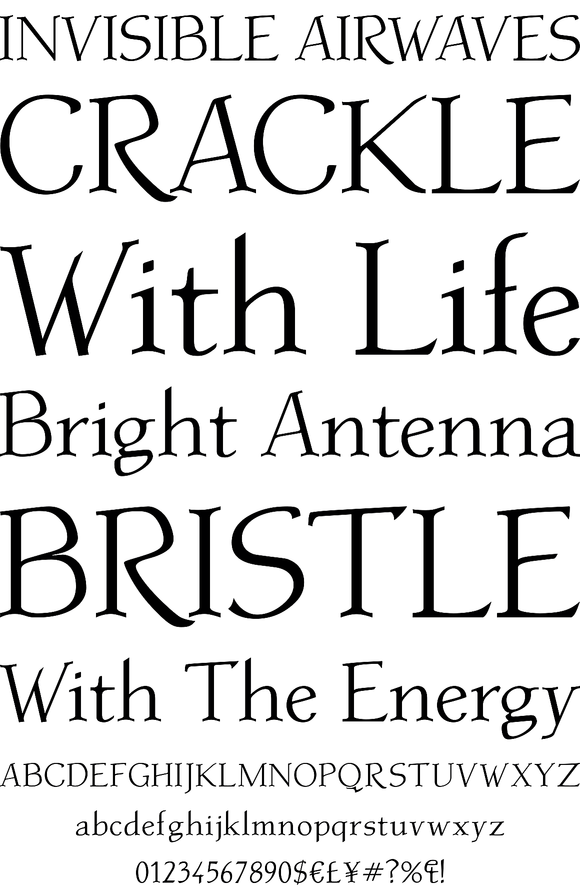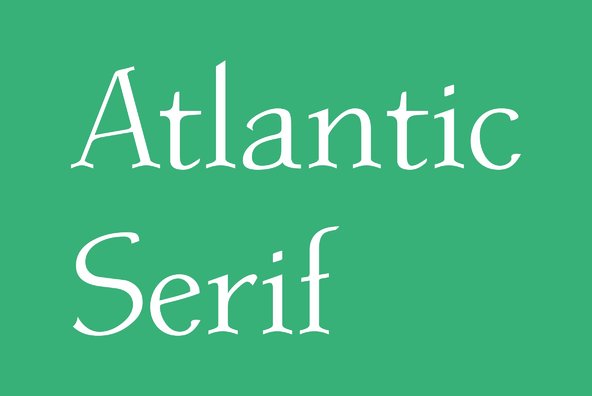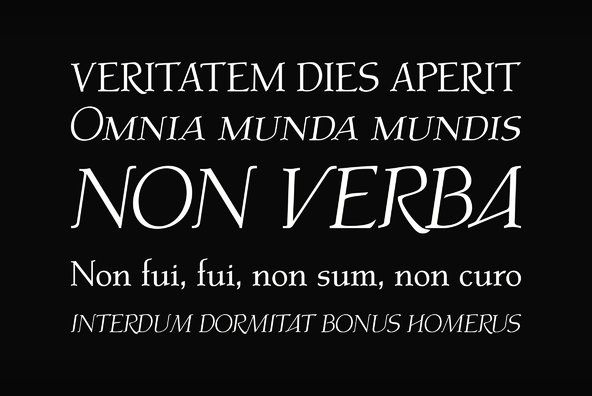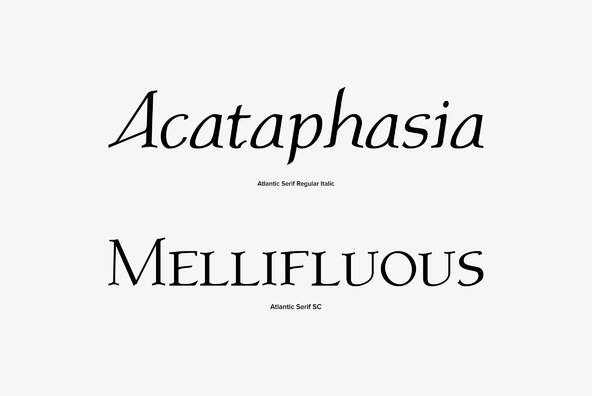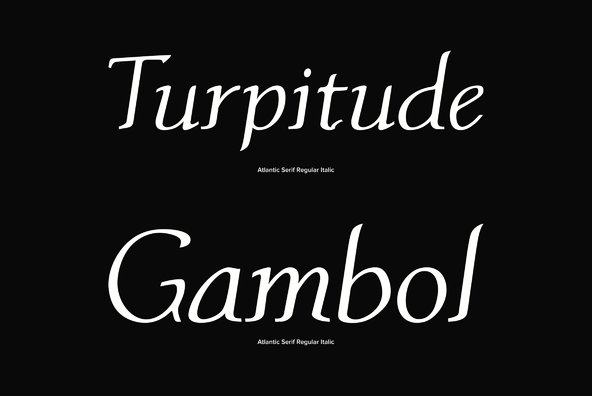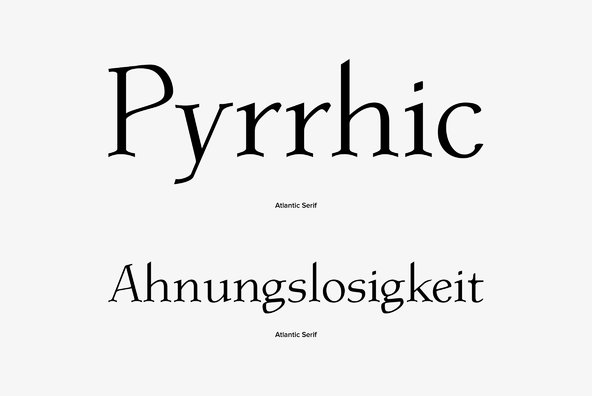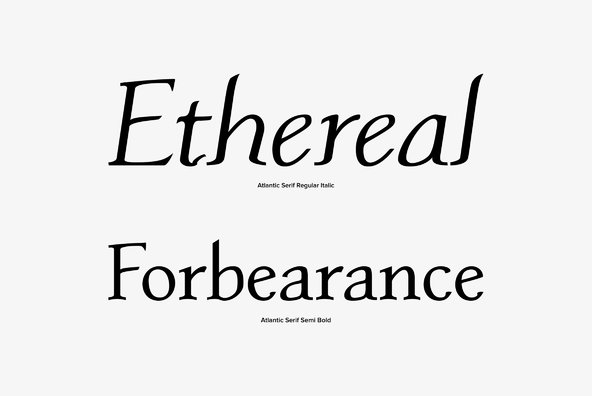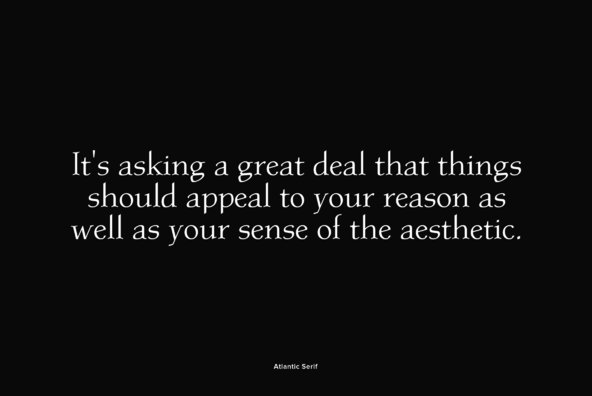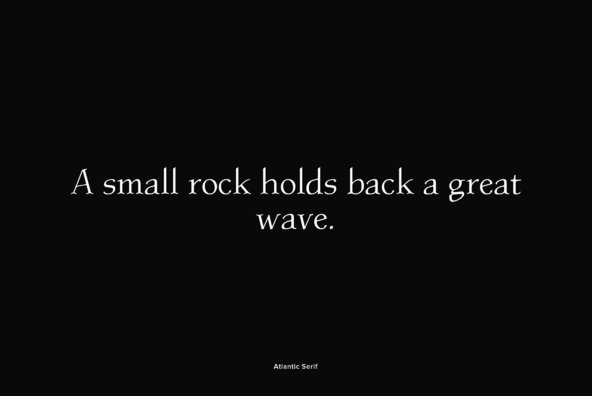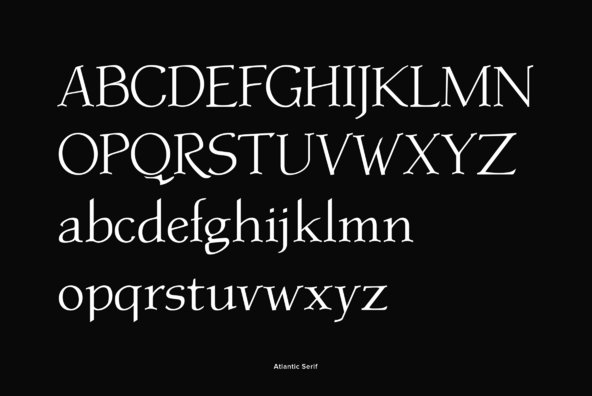
Atlantic Serif
The original plan for Atlantic was to design a typeface in the Venetian syle of the Renaissance, with handwriting character and large ascenders. There is a wave-rolling unevenness in both the x- and cap-height caused by the strong ductus pointing to the upper right, together with heavily curved serifs, resulting in a very lively image of text on a page.
Atlantic - its name reflects the ocean, ships, carriers and loads, tourism and so on. These are the themes Atlantic is best suited for.
The extended family includes a serif, a sans, and a special variant - a SeaWashed. Atlantic was designed for the URW++ SelecType collection.